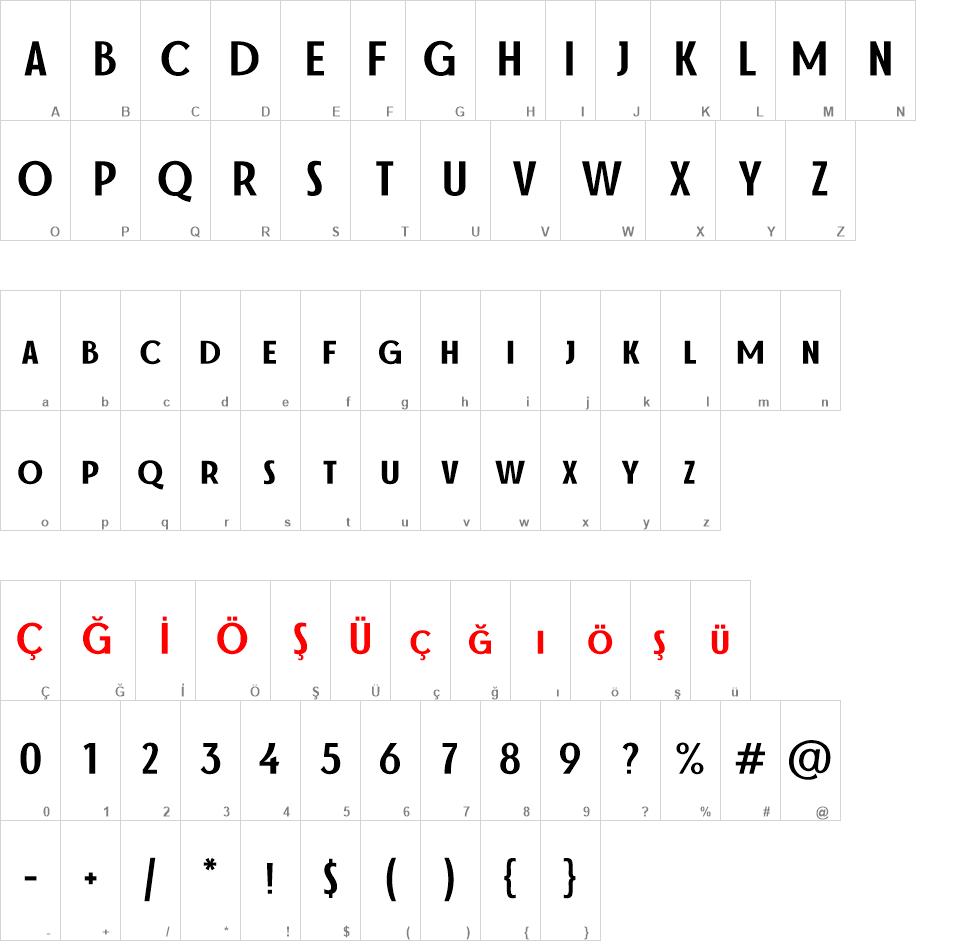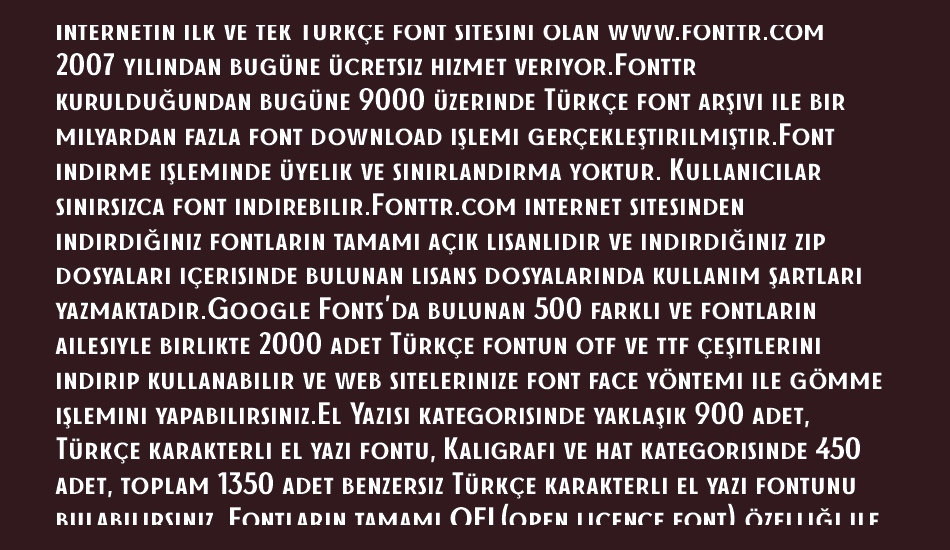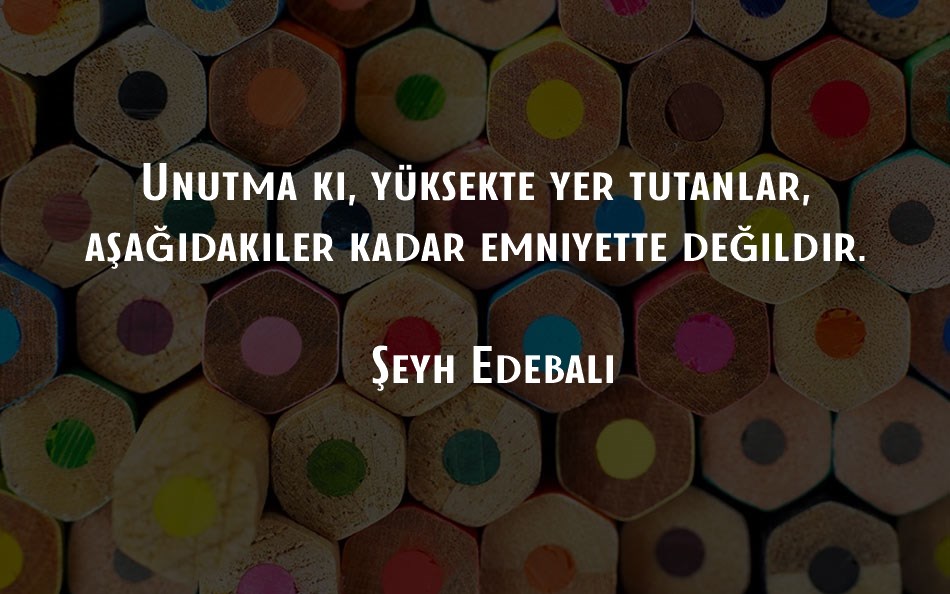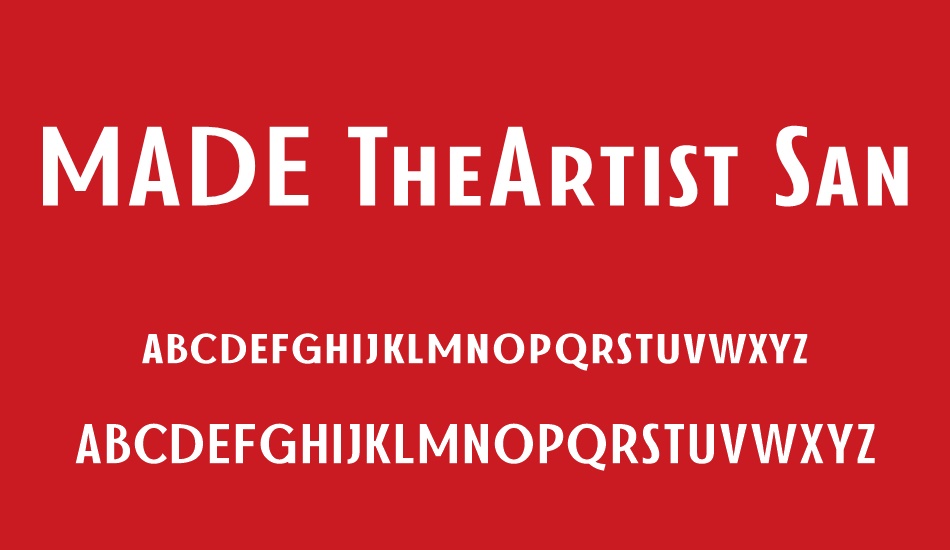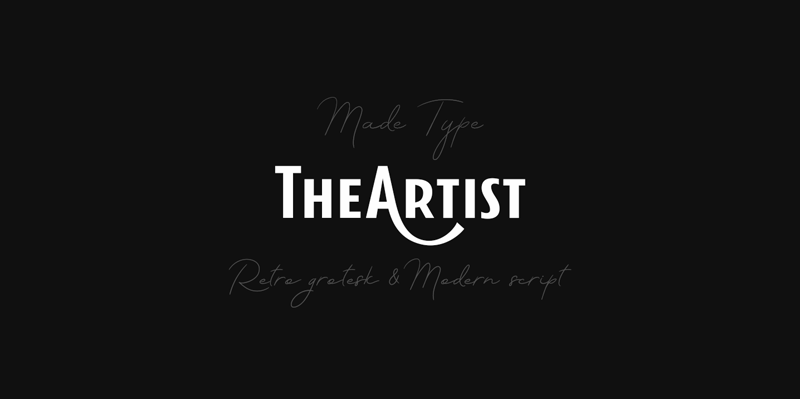
TheArtist Sans font
TheArtist Sans
MADE TheArtist is a duo fonts - retro grotesk and modern script with Extras. TheArtist Sans is equipped with Swash alternates.
MADE TheArtist is great for any kind of display use from online to packaging to posters or identities.
MADE TheArtist Sans font